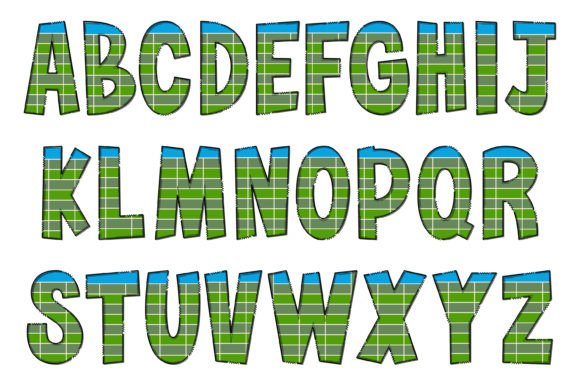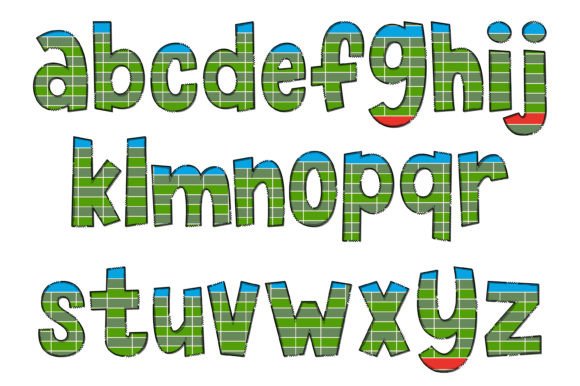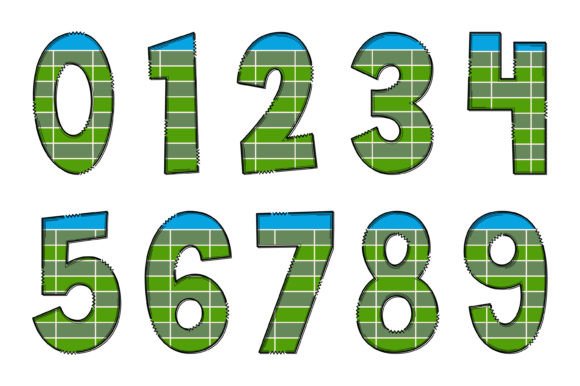
The Ultimate Guide to American Football Font: A Playful and Artistic Design Element
When it comes to designing materials that require a playful or artistic touch, the right font can make all the difference. One such font that has gained popularity among designers and crafters is the American Football font. In this comprehensive guide, we’ll explore the versatility of American Football font and how it can be used in various design projects to convey a sense of fun and creativity.
What is American Football Font?
American Football font is a typeface that is reminiscent of the classic, bold, and playful aesthetic of American football. Its unique design elements, such as chunky lines, rounded edges, and sporty flair, make it an excellent choice for designs that require a lively and energetic feel.
Using American Football Font in Designs
American Football font can be used in a wide range of designs that aim to convey a playful or artistic feel. Some examples include:
- Children’s Books: Whimsical fonts like American Football are perfect for children’s books, as they create an engaging and immersive reading experience for young audiences. The font’s colorful and playful vibe can help bring stories to life and capture the imagination of readers.
- Posters: American Football font can add a fun and energetic touch to posters, making them stand out and grab attention. Whether it’s for a sports event, a festival, or a promotional campaign, this font is sure to make a statement.
- Invitations: The playful and artistic feel of American Football font makes it an excellent choice for invitations, such as birthday parties, graduations, or other celebrations. It sets the tone for a fun and memorable event.
- Greeting Cards: American Football font can add a personal touch to greeting cards, making them more special and meaningful. Whether it’s for a birthday, holiday, or just because, this font is sure to bring a smile to the recipient’s face.
Benefits of Using American Football Font
So, why choose American Football font for your designs? Here are some benefits:
- Playful and Artistic: American Football font adds a playful and artistic touch to designs, making them more engaging and visually appealing.
- Easy to Read: The font’s chunky lines and rounded edges make it easy to read, even for young audiences or in situations where readability is crucial.
- Versatile: American Football font can be used in various design projects, from children’s books to posters, invitations, and greeting cards.
- Customizable: The font can be customized to fit your design needs, allowing you to adjust the size, color, and style to suit your project.
Tips for Using American Football Font
To get the most out of American Football font, here are some tips:
- Pair with Other Fonts: Combine American Football font with other fonts to create a unique and visually appealing design.
- Experiment with Colors: Try out different colors to find the perfect match for your design. Bright and bold colors work well with American Football font.
- Use in Combination with Images: Pair American Football font with images or illustrations to create a more engaging and dynamic design.
American Football font is a versatile and playful design element that can add a fun and artistic touch to various design projects. Its unique design elements, ease of readability, and customizability make it an excellent choice for designers and crafters. Whether you’re working on a children’s book, poster, invitation, or greeting card, American Football font is sure to bring a smile to your audience’s face.
Get Creative with American Football Font